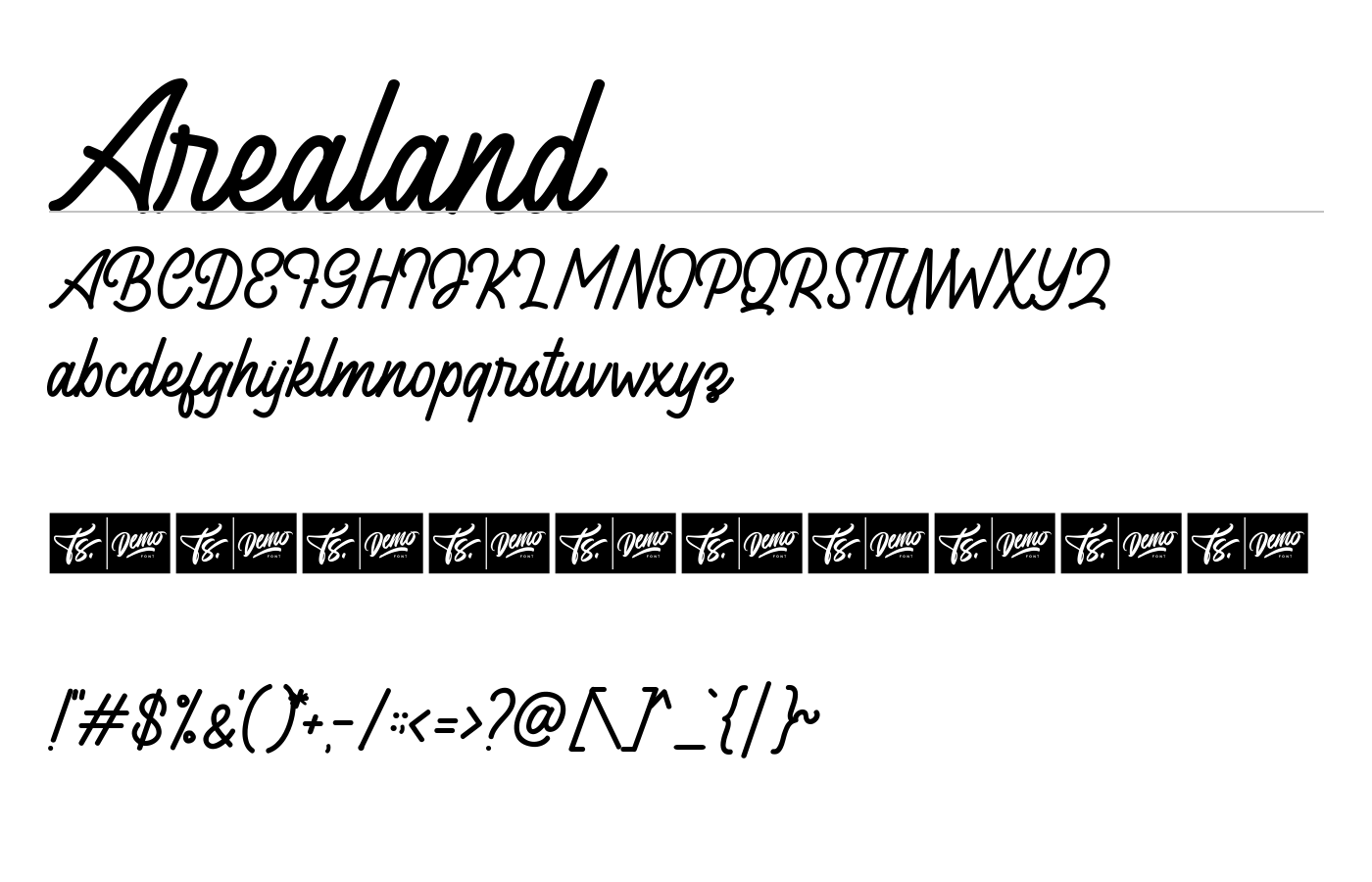
Arealand is a stylish script font with a smooth, handwritten feel that combines elegance and casual charm. Its fluid strokes and balanced letterforms make it perfect for branding, invitations, and creative projects where a personal yet polished touch is desired. This font works beautifully in logos and headlines, bringing warmth and friendliness to any design.
Arealand Font
About Arealand Font
| Font family | Arealand Font |
| Designer | Fahrul Arjianto |